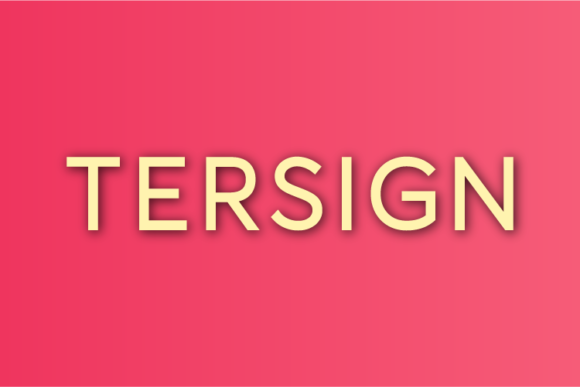
Welcome to the world of Tersign, a captivating sans serif font that will transform your Christmas card labels into exquisite works of art. This elegant font, crafted by the ingenious A Christie, exudes minimalism and neatness, making it the perfect companion for your festive designs.
With Tersign, you have a font that effortlessly blends simplicity and sophistication, allowing your Christmas messages to shine with a touch of timeless beauty. Its clean lines and balanced letterforms ensure that every word is legible and impactful, drawing the eyes of your loved ones to your heartfelt greetings.
Dive into a world of creative possibilities with Tersign. Whether you're designing classic Christmas cards, crafting personalized gift tags, or creating enchanting holiday invitations, this font will effortlessly complement your vision. Its versatility extends to digital designs as well, adding a festive flair to your social media posts, website headers, and even Christmas-themed marketing materials.
Tersign is not just a font; it's an experience. As your fingers dance across the keyboard, you'll feel the warmth and joy of the Christmas season come alive. Each letter, meticulously crafted with love, will carry your heartfelt messages with grace and elegance.
Don't miss this opportunity to elevate your Christmas card labels to new heights of beauty and charm. Embrace Tersign today and let your creativity soar. The magic of Christmas awaits you, and Tersign is your key to unlocking it.